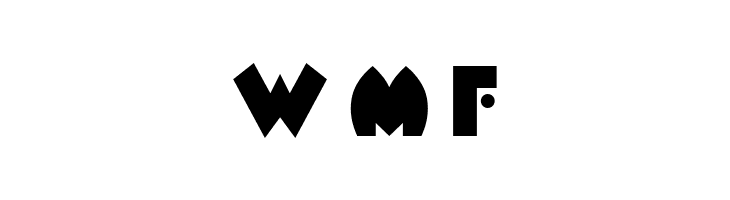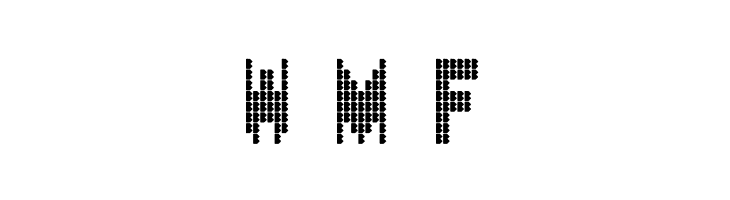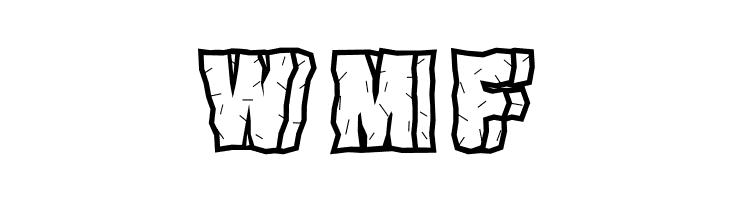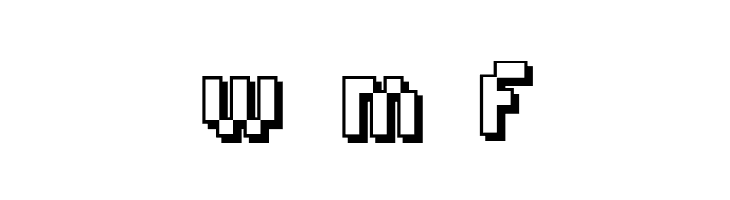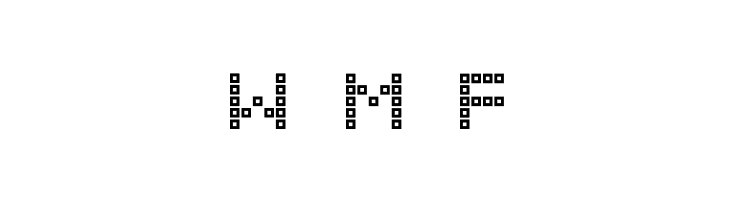
A bold, geometric font with retro and art deco influences.
( Fonts by Daniel Gauthier )
A dot matrix style font with a retro digital display look.
( Fonts by Daniel Gauthier )
A bold, pixelated display font with a retro digital aesthetic.
( Fonts by Daniel Gauthier )
A bold, textured font with a rugged, rock-like appearance.
A bold, pixelated font with a retro, 8-bit video game style.
A geometric, pixelated font with a digital, retro aesthetic.